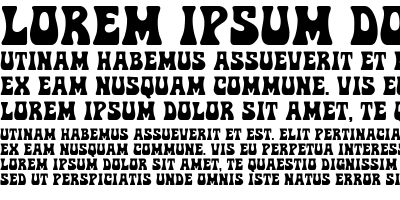
Church In The Wildwood Complete Font is perfect for rustic wedding venues, country church branding, outdoor ministry materials, rural community events, vintage religious publications, and pastoral designs where faith meets natural simplicity.
What makes Church In The Wildwood Complete Font exciting is its rustic spiritual character with woodsy charm that captures the essence of countryside faith and natural worship, making it ideal for brands seeking to convey tradition, authenticity, and humble devotion.
Church In The Wildwood Complete Font family includes pastoral variations: Regular, Bold, Light, Rustic, and Scripture versions, providing designers with comprehensive options for religious and rural community-focused design projects.
This heartwarming typeface grows like wildflowers with its natural letterforms and humble character that speaks to the beauty of simple faith and countryside worship traditions. Church In The Wildwood Complete Font Free Download offers designers access to typography that embodies the essence of rural spirituality and authentic religious community. The font's distinctive pastoral aesthetic makes it perfect for country churches, Christian camps, and faith-based retreat centers. Its humble design works beautifully for both traditional applications like church bulletins and contemporary uses such as ministry websites and faith-based social media campaigns. The carefully crafted letterforms ensure excellent readability while maintaining the peaceful, reverent atmosphere that defines quality religious branding. Whether you're creating rural ministry identities, Christian camp materials, or faith-based community event promotion, this font delivers the authentic spiritual warmth and countryside charm that resonates with faithful communities who find God in nature's beauty and celebrate the simple joy of gathering together in humble worship and fellowship.